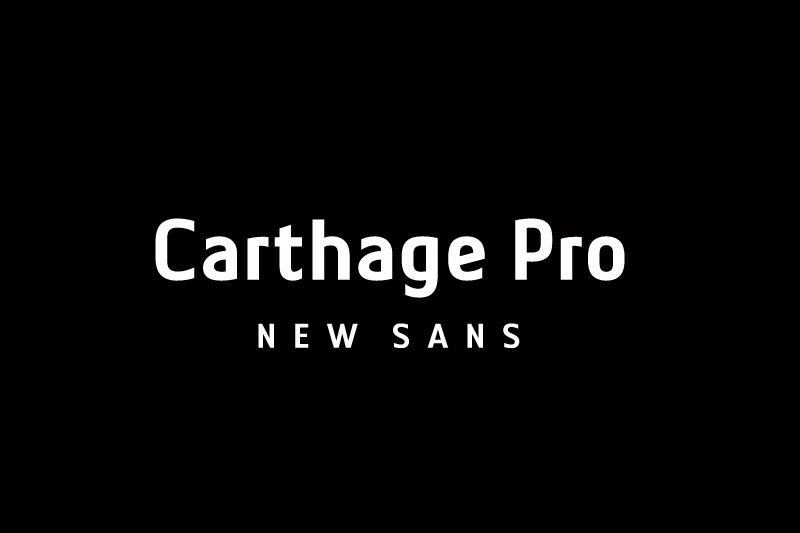
Carthage Pro Extra-bold, designed by Mo Ya, is a sleek and contemporary sans serif font that is perfect for various projects. With its extra-bold weight and semi-expanded width, this font exudes confidence and grabs attention effortlessly.
Whether you need a striking logo for your brand, eye-catching banners for your website, or captivating labels for your products, Carthage Pro has got you covered. Its clean lines and modern aesthetic make it an ideal choice for advertising campaigns and web design projects.
With Carthage Pro Extra-bold, your designs will instantly stand out from the crowd and leave a lasting impression on your audience. Whatever project you have in mind, this font will add value and elevate its visual appeal to new heights.